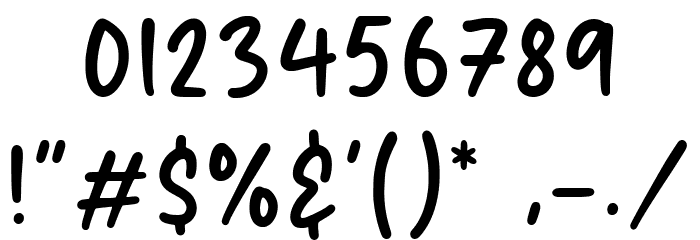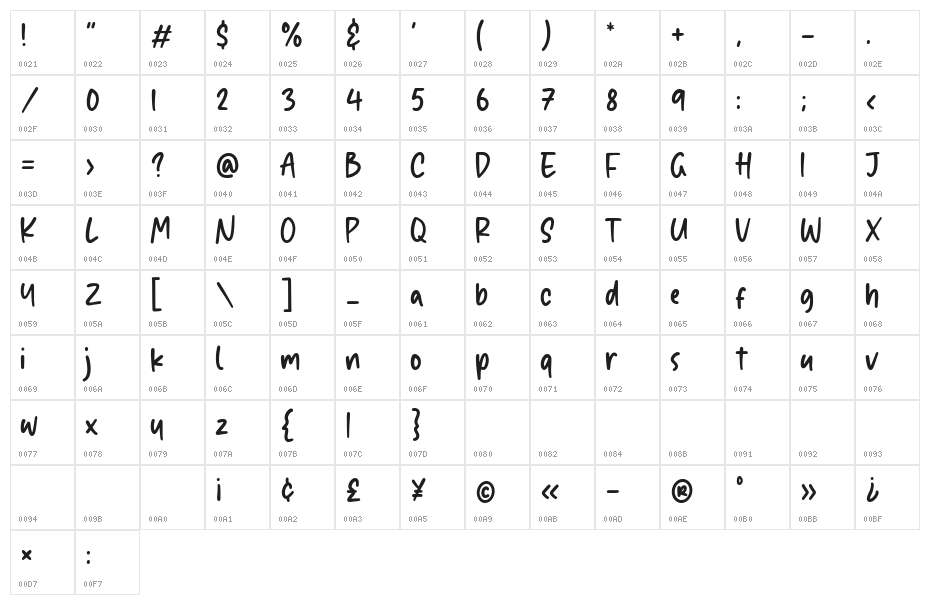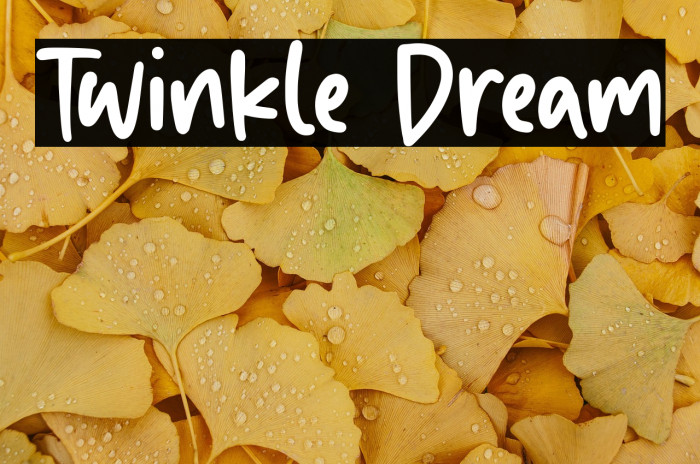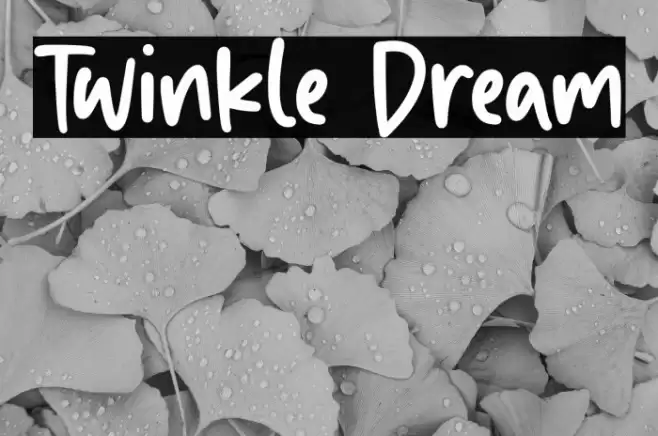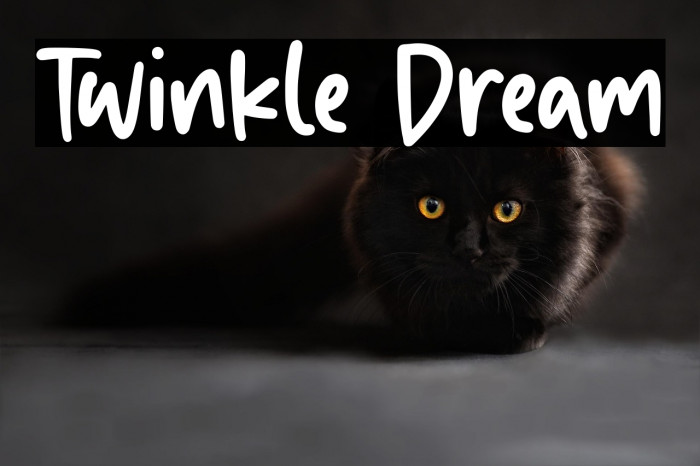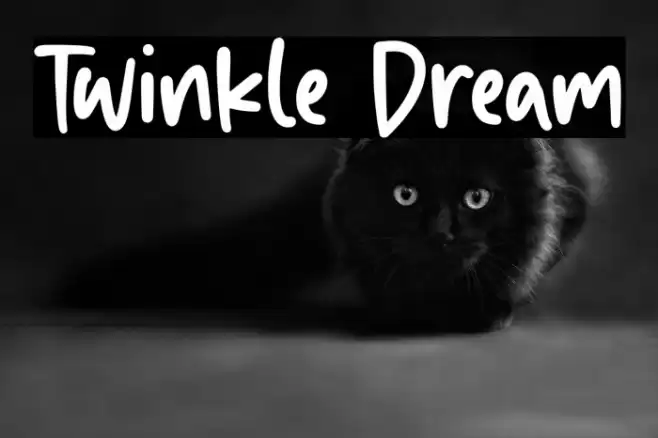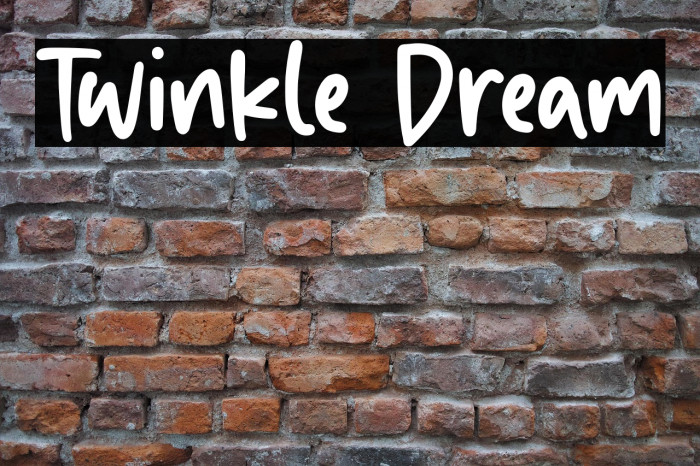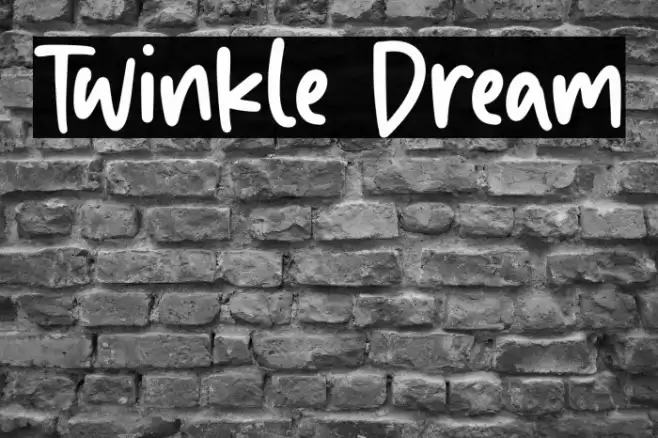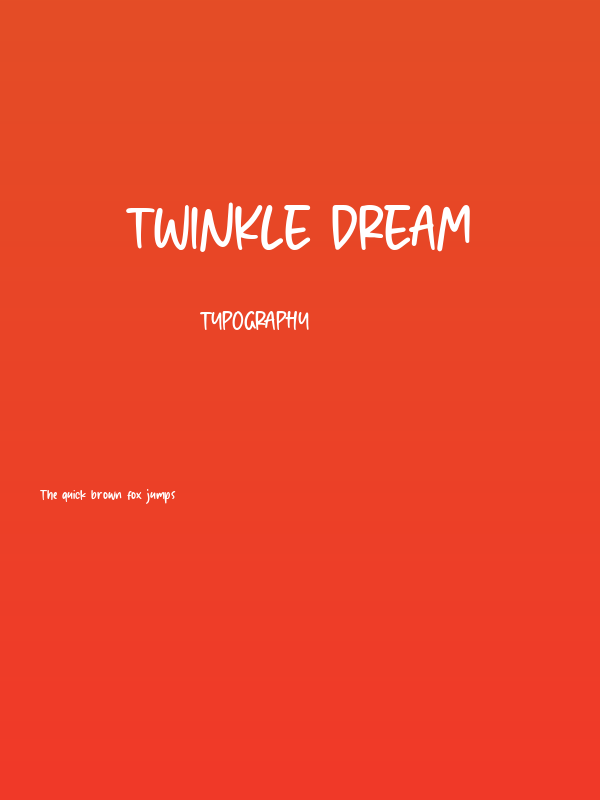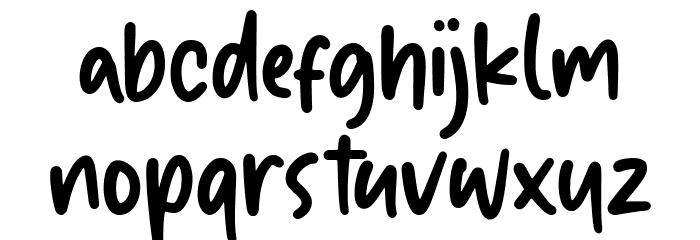
Twinkle Dream Font
Twinkle Dream Description
This playful and whimsical font features a handwritten style that exudes a sense of fun and creativity. The letters are slightly irregular, giving it a natural and casual appearance. The strokes are smooth and rounded, contributing to its friendly and approachable feel. The uppercase and lowercase letters maintain a consistent style, with a slight slant that adds to the dynamic nature of the font. Numbers and special characters are included, matching the overall aesthetic. This font is perfect for projects that require a personal touch or a lighthearted vibe.
| Overall Style | Casual and playful |
| Use Case | Headlines, Logos, Informal text |
| Proposed Projects | Ideal for greeting cards, children's books, playful branding, and social media graphics. |